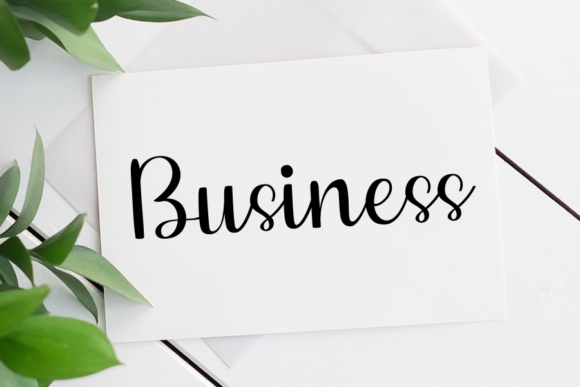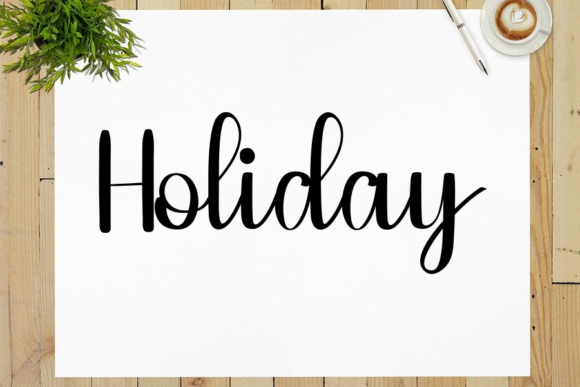
Chocolate Font
db-ku.com - Script & Handwritten -- Chocolate is an enchanting handwritten font. This versatile script font has a wide spectrum of applications ranging from greeting cards to headlines and is guaranteed to add a romantic feel to your next project.